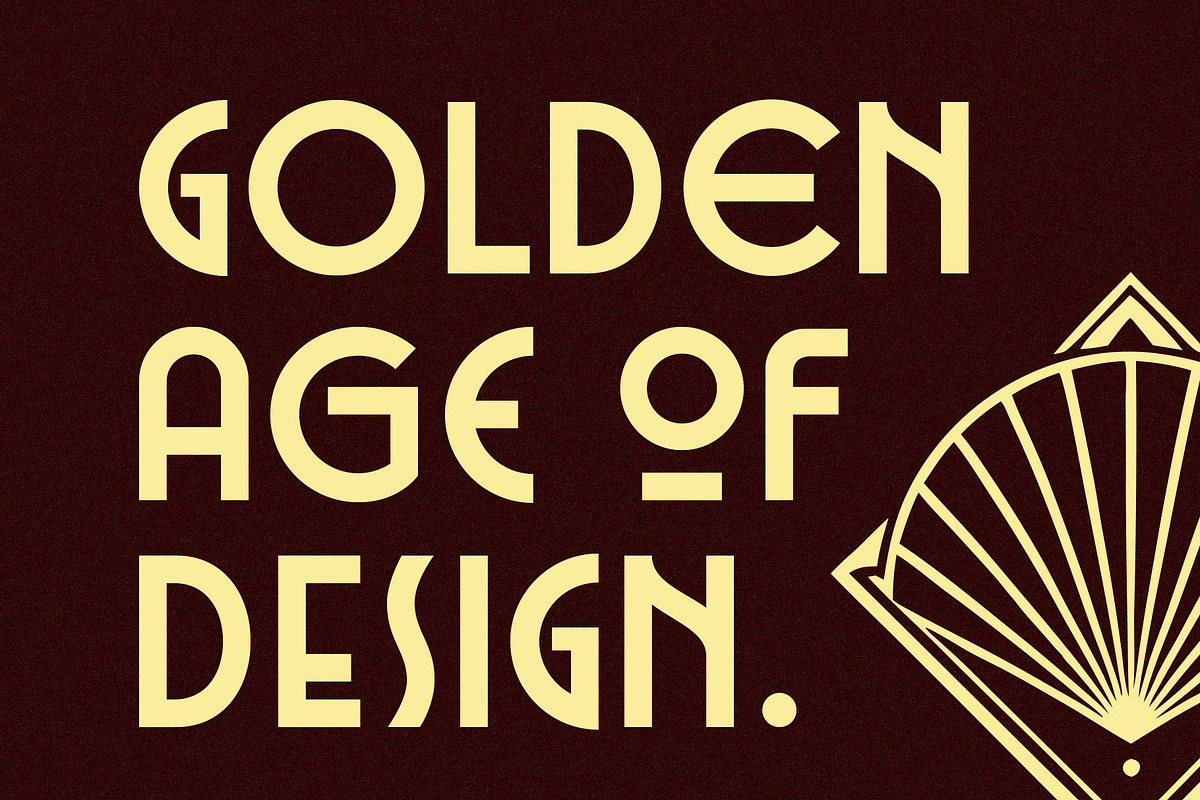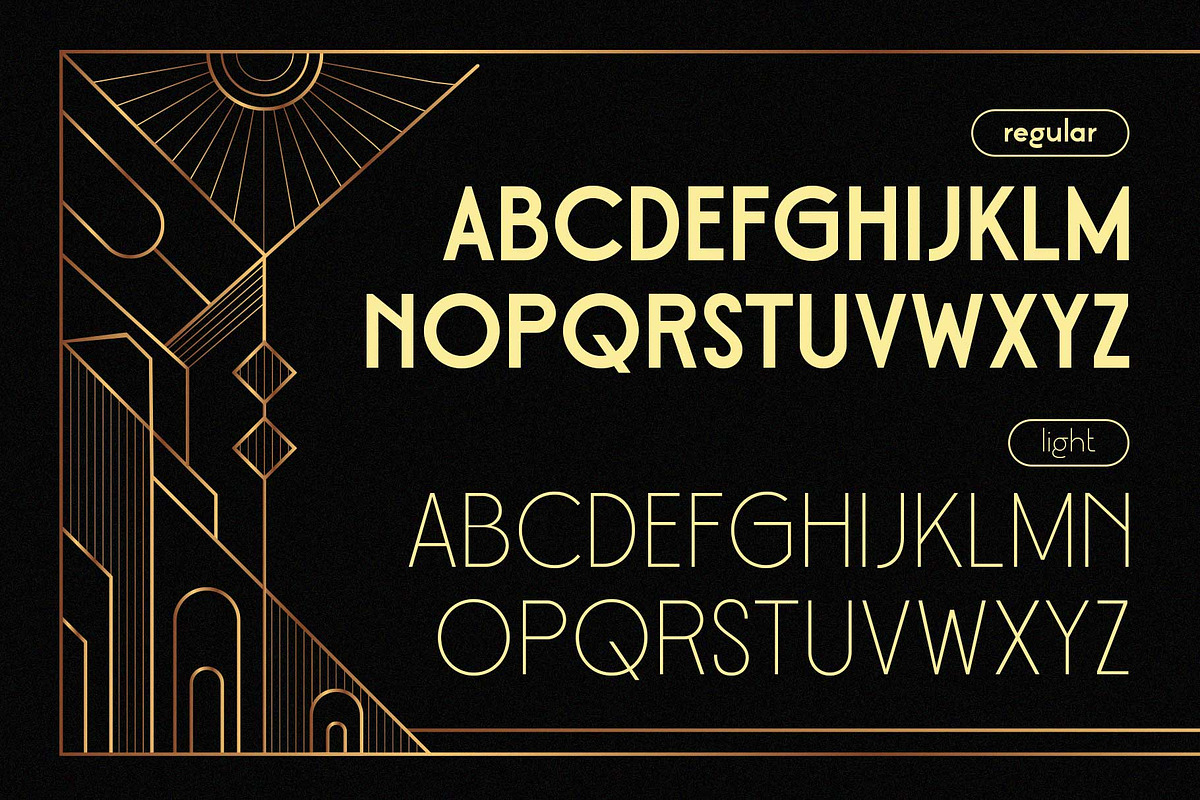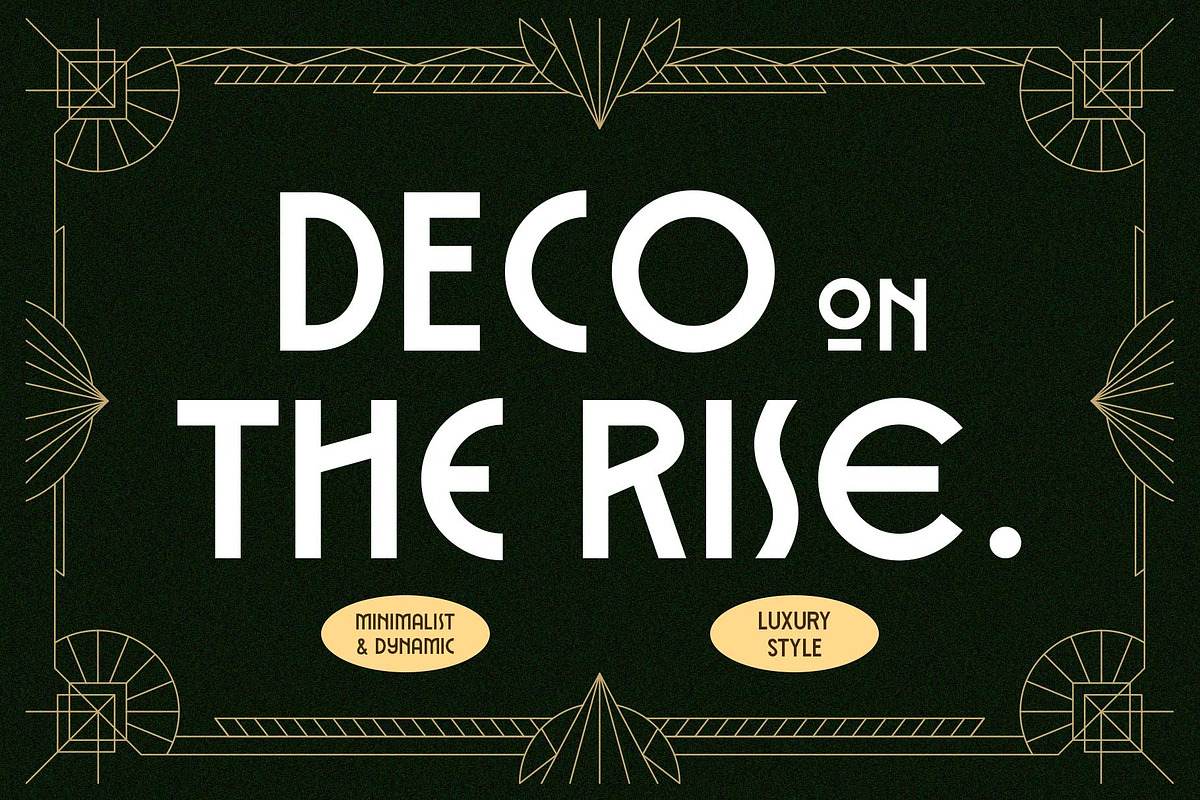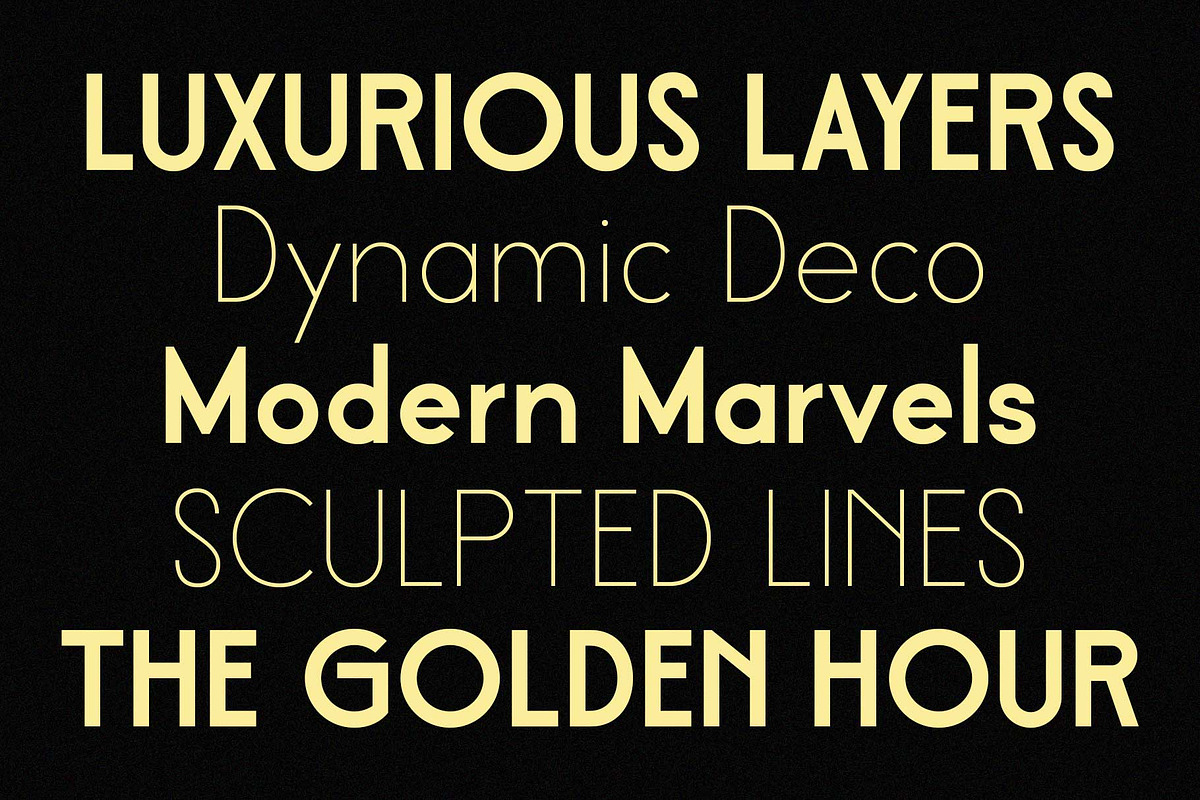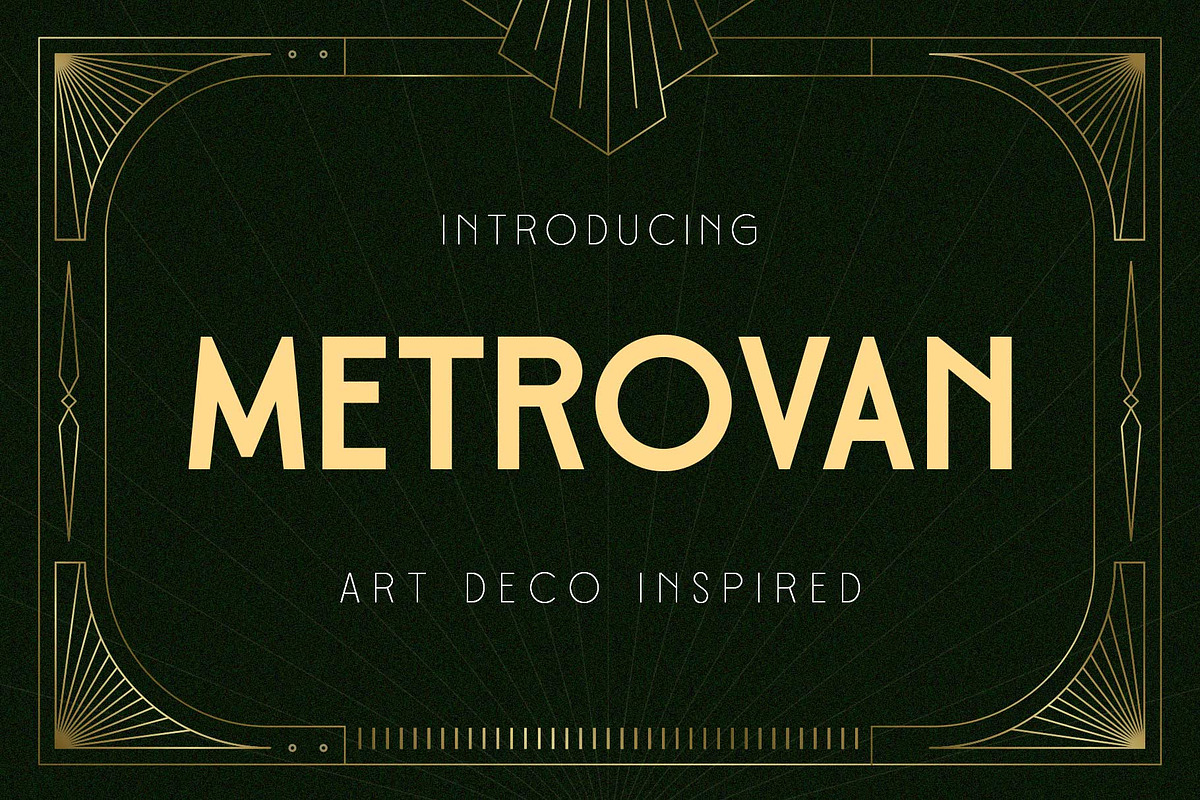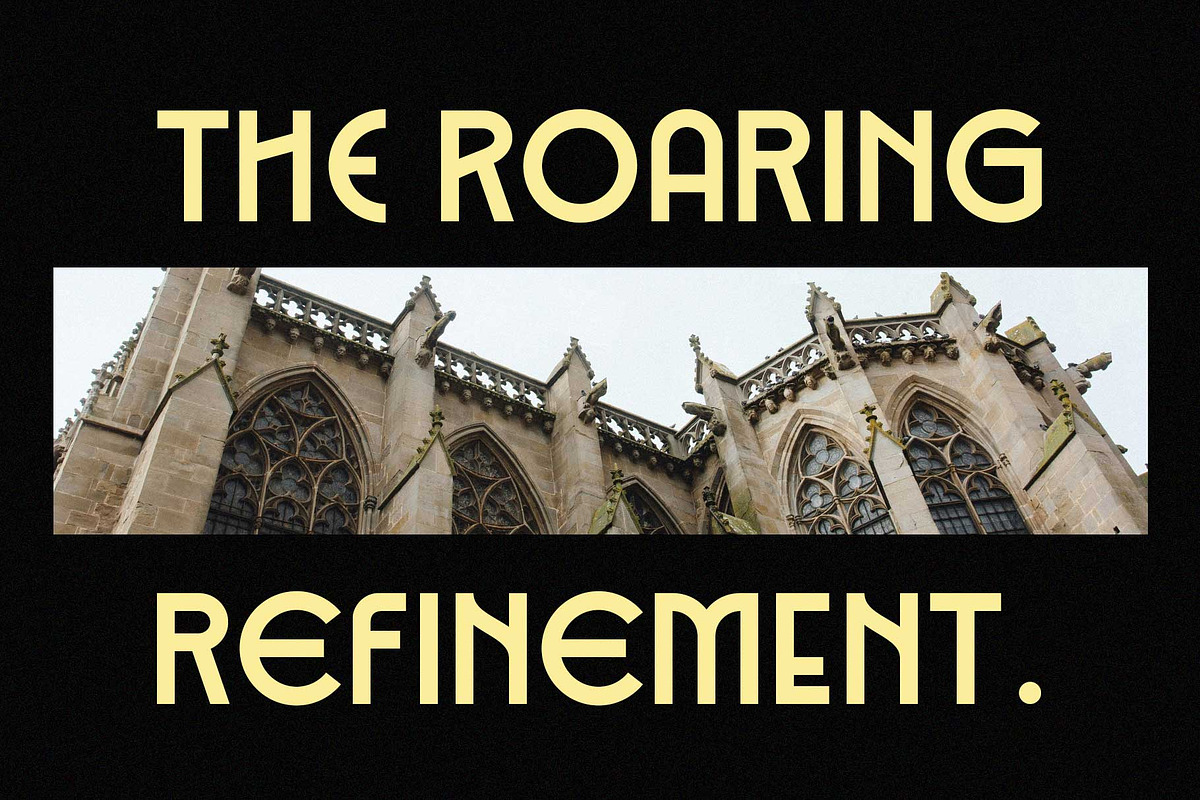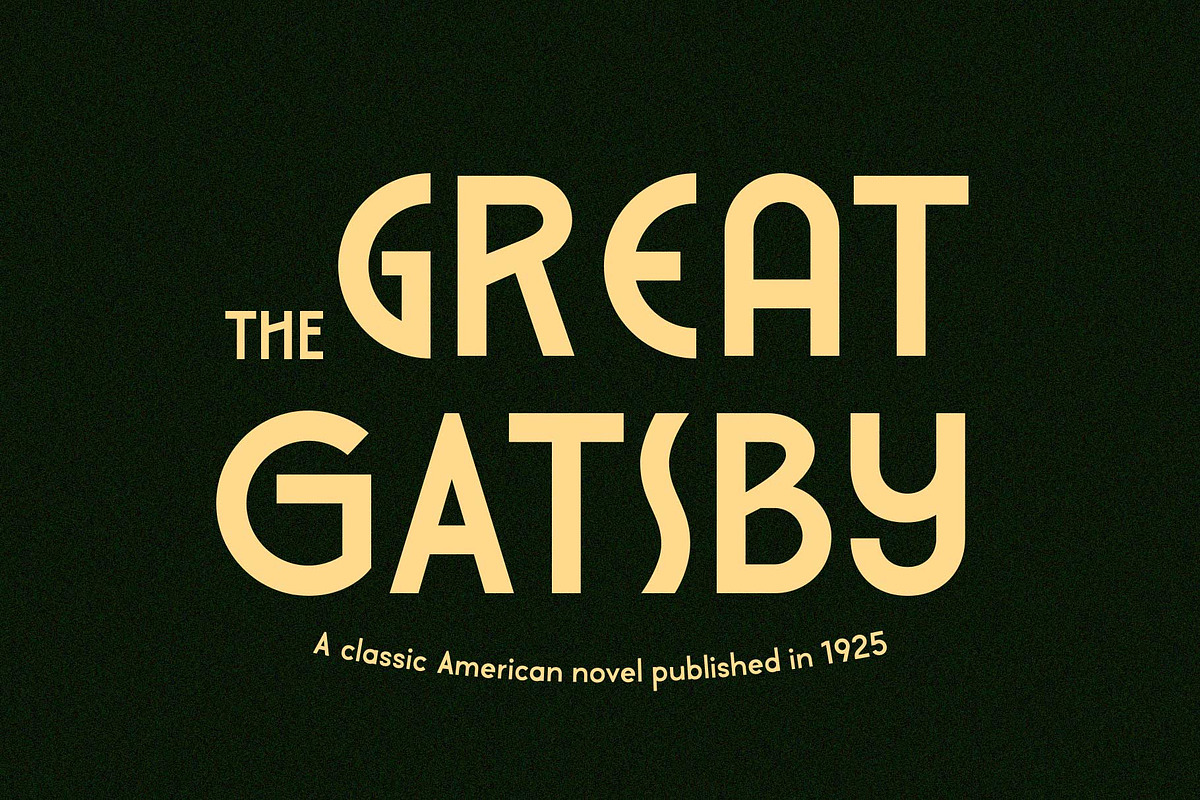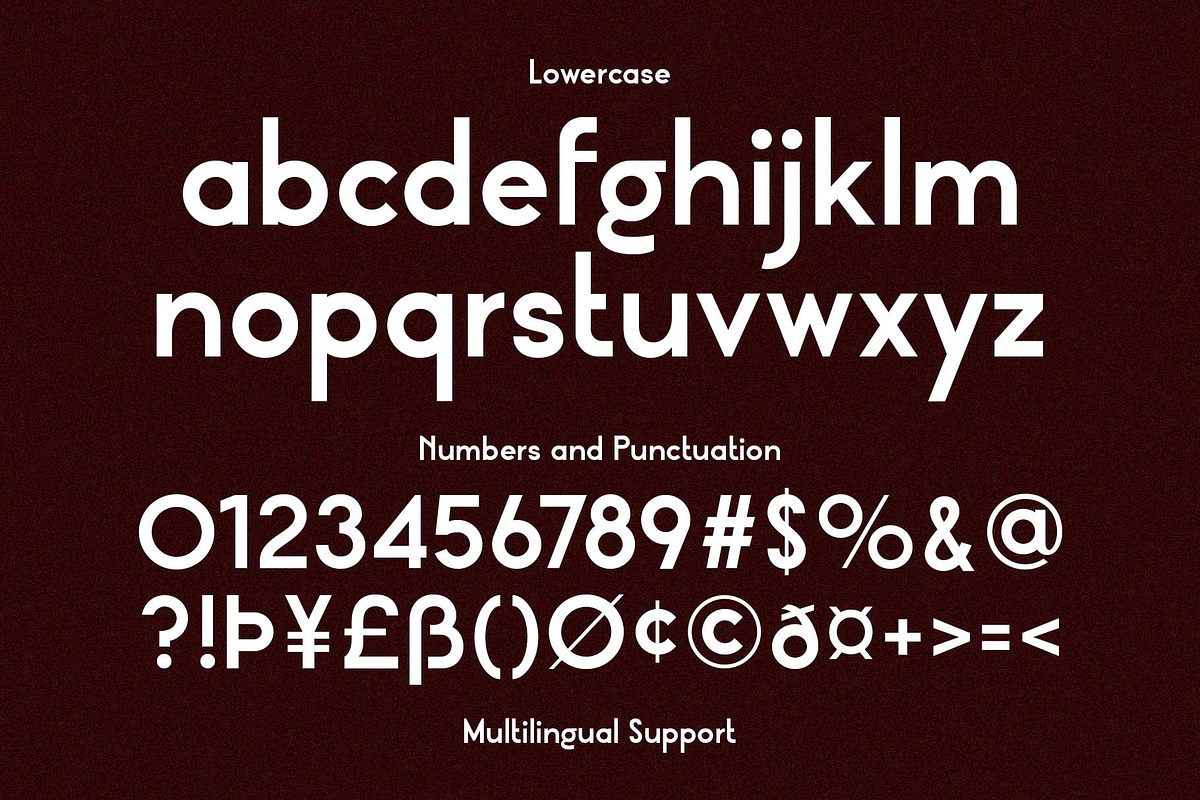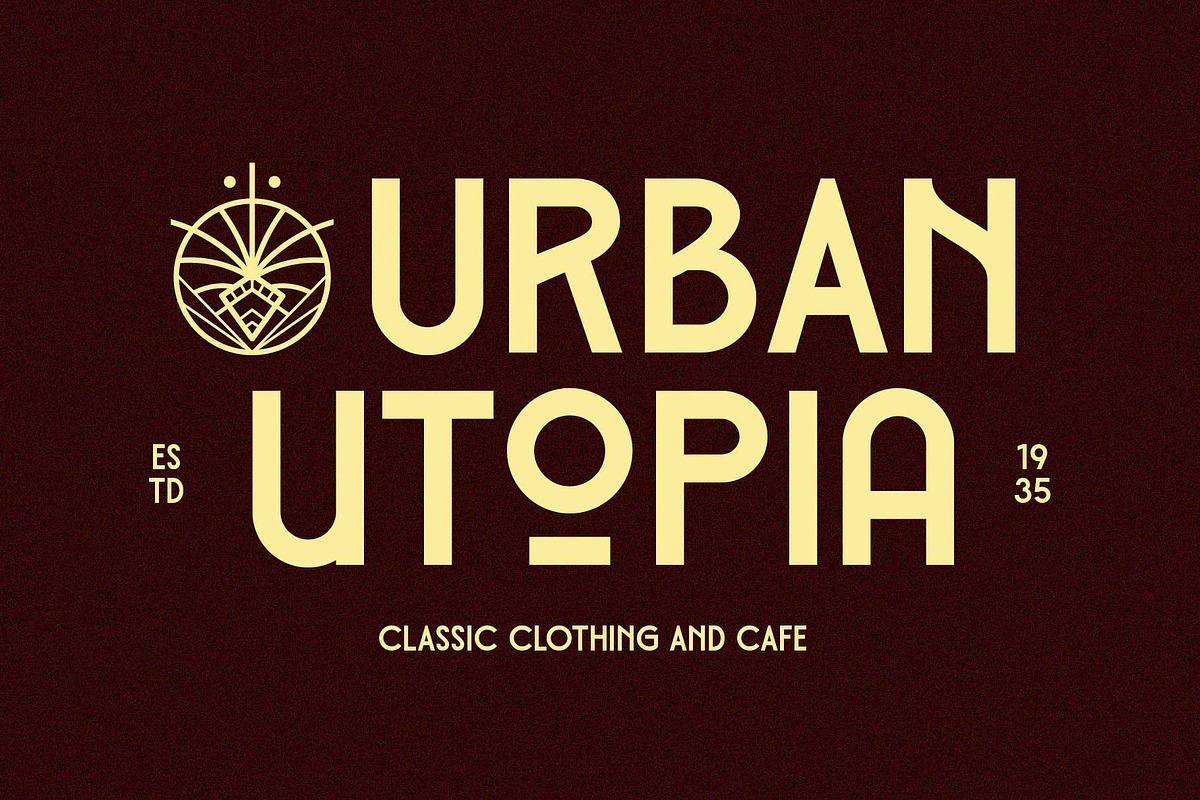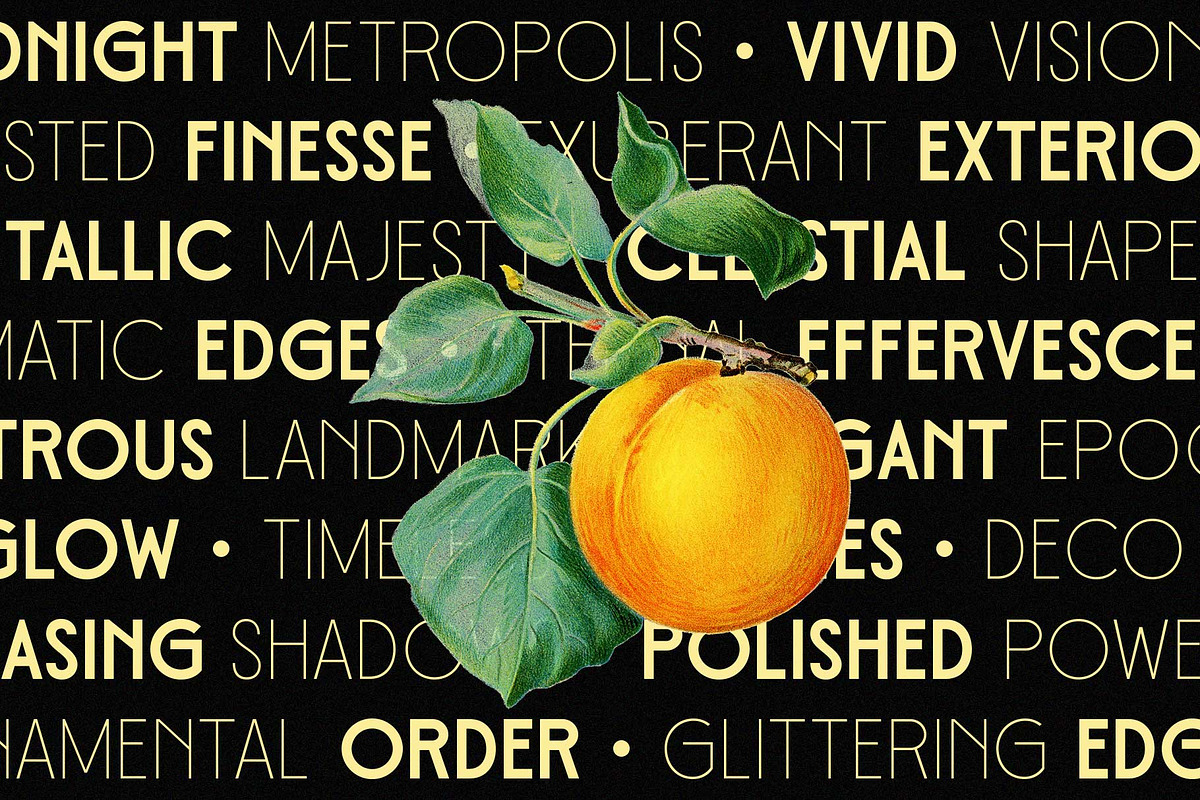
Metrovan - Art Deco Style
Metrovan is an Art Deco typeface with a luxurious aesthetic. Inspired by the 1920s, when Art Deco emerged as a prominent design style symbolizing wealth and sophistication, it brings a touch of elegance to your projects. Perfect for designs requiring an exclusive, luxurious, glorious, yet minimalist feel.
Metrovan includes Regular and Light styles that can be seamlessly combined for cohesive designs. It also features special characters, allowing for dynamic and creative typography combinations.